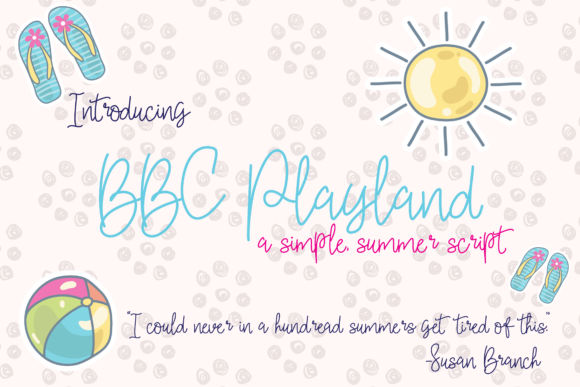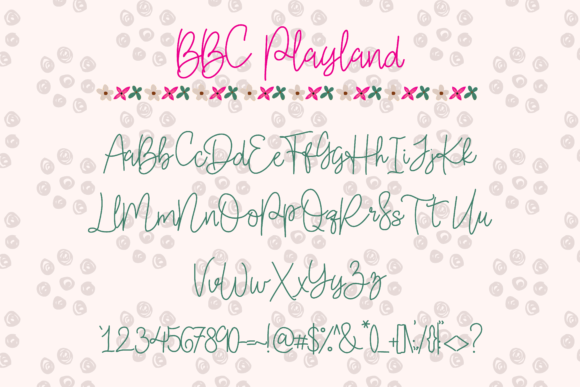
BBC Playland Font
About BBC Playland Font
BBC Playland is a simple, summer-themed font that will add a special, handwritten feel to any of your design projects.